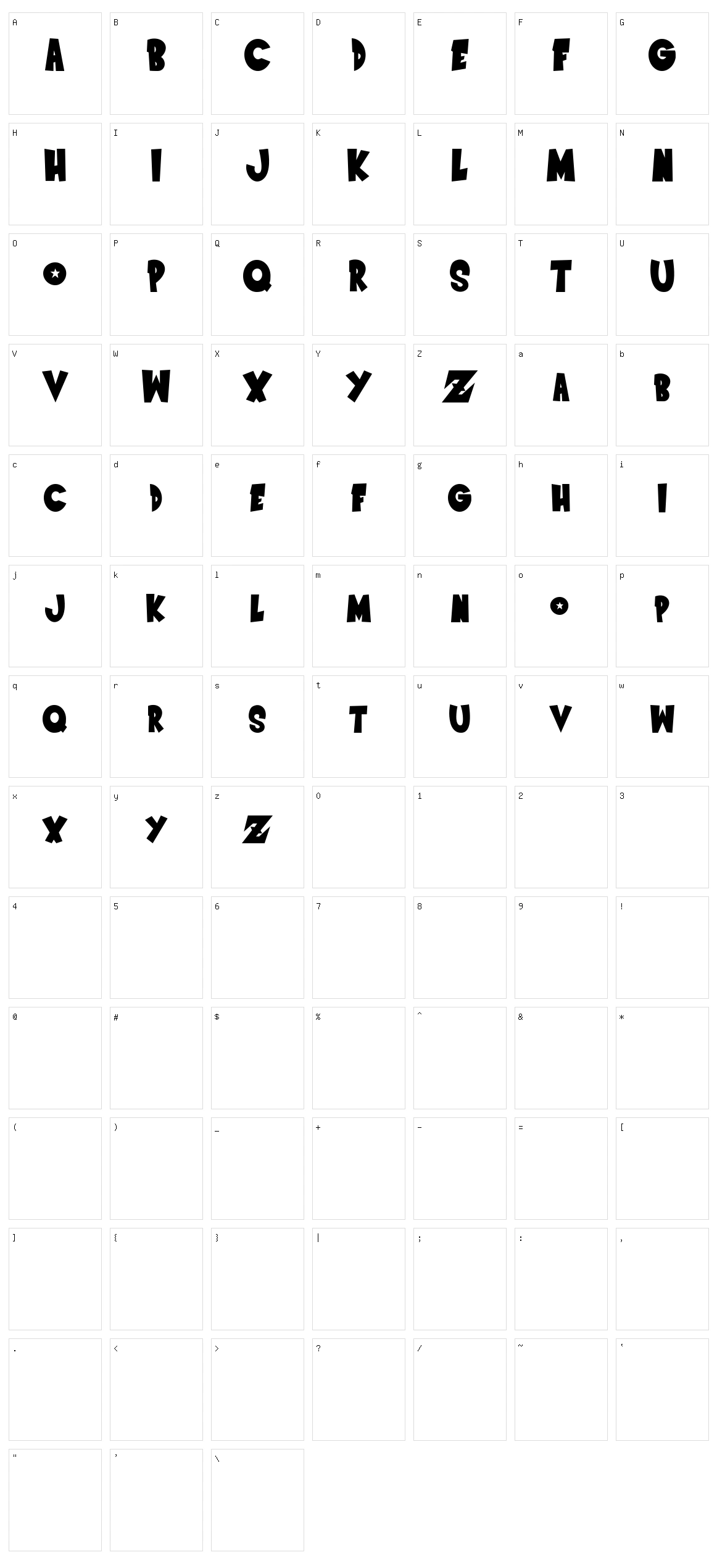
able to find a Dragonball Z font anywhere on the web, so from
the logo I just kinda tried to follow Akira Toriyama's style
for the other letters.
If you are using it for doing DBZ like headers, these are the
rules I have figured out
<----------- O ------------>
Use the Left Oblique for the left hand side of the Dragonball
(letter o) and Right Oblique for the right hand side.